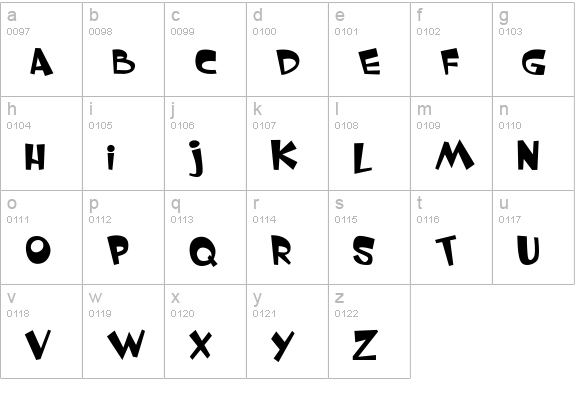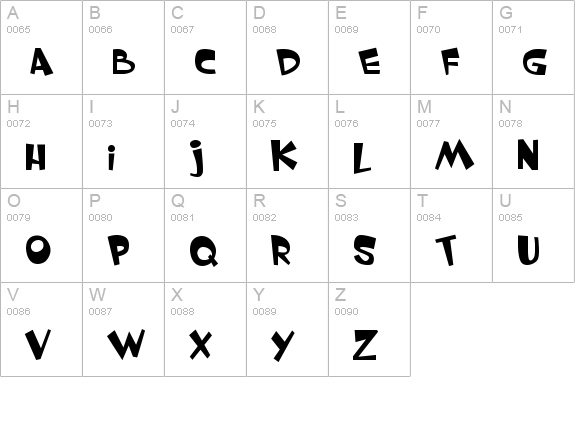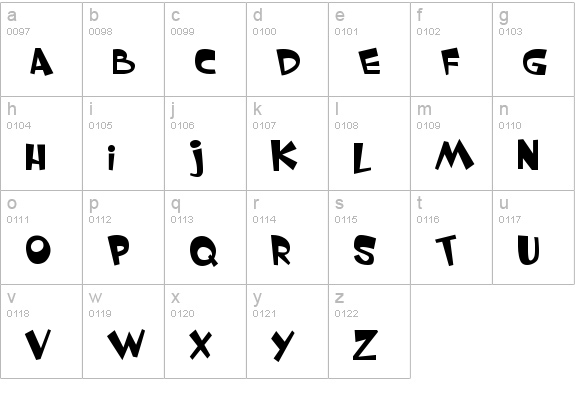
Whimsy TT Font Details
Whimsy TT font is a delightful and enchanting typeface that will add a touch of playfulness and whimsy to any design project. With its unique and quirky letterforms, this font captures the essence of creativity and imagination. Designed with attention to detail, Whimsy TT font is perfect for adding a touch of charm to children's books, greeting cards, invitations, and any other design that calls for a dash of whimsical flair. Its smooth lines and graceful curves evoke a sense of joy and lightheartedness, making it a perfect choice for projects that aim to bring a smile to people's faces. One of the most appealing aspects of Whimsy TT font is that it is available for free download at FontsMarket.com. This means that designers and creatives can easily access this delightful font without any cost. With just a few clicks, you can bring this font into your design toolkit and start adding a touch of whimsy to your projects. Whether you're working on a children's book cover, a party invitation, or a logo for a fun and playful brand, Whimsy TT font will bring a sense of wonder and excitement to your designs. Its versatility allows it to be used in a variety of contexts, from digital media to print materials. With Whimsy TT font, you can let your imagination run wild and create designs that are truly magical. So why wait? Download this enchanting font for free at FontsMarket.com and let your creativity take flight!